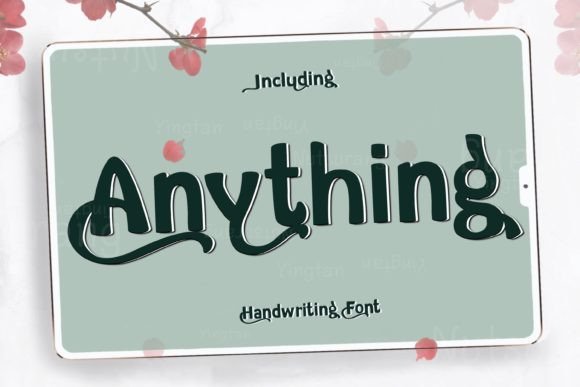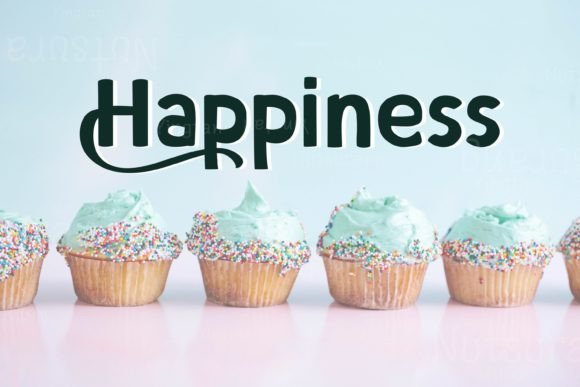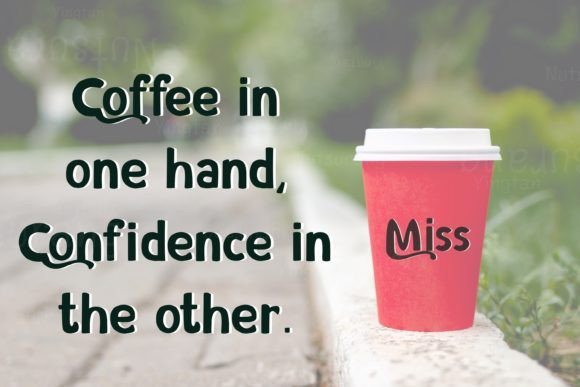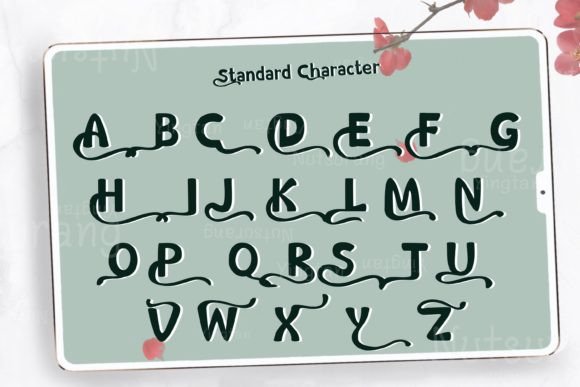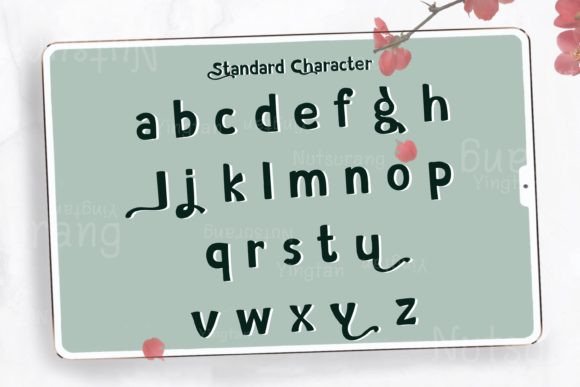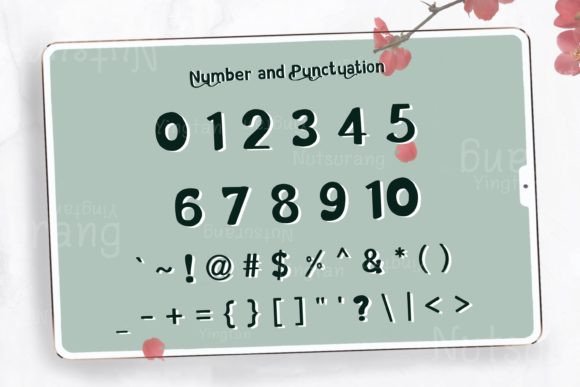
Anything Font
About Anything Font
Anything is not just a font; it’s a burst of fun and freshness that injects a playful spirit into your designs. With its modern yet whimsical style, this handwritten font adds a touch of creativity and lightheartedness to any project, creating a vibrant and engaging visual experience. Whether you’re designing greeting cards, posters, social media graphics, or any other creative content, Anything is the perfect choice to immerse your designs into a playful world.
Imagine Anything in greeting cards. Its fun and fresh characters create an immediate sense of joy and celebration, making the cards lively and delightful. Whether it’s a birthday card, a congratulatory message, or a festive invitation, this font adds a playful touch, making the cards visually appealing and memorable. Anything’s whimsical style ensures that your greetings are filled with positivity and cheer, creating a warm and joyful connection with the recipient.
In posters, Anything adds a pop of creativity. Whether it’s for events, promotions, or artistic expressions, this font creates visually striking and dynamic compositions. Anything’s modern yet whimsical design captures attention and conveys a sense of playfulness, making the posters eye-catching and engaging. The font’s fun spirit enhances the overall visual impact, turning ordinary posters into lively and captivating artworks that resonate with viewers.
For social media graphics, Anything adds a touch of freshness. Whether it’s used in Instagram stories, Facebook posts, or Twitter updates, this font creates visually appealing and shareable content. Anything’s playful and modern style enhances the social media presence, making the content stand out in crowded feeds. The font’s fun and fresh vibe ensure that your messages are conveyed with enthusiasm, sparking the interest of your audience and encouraging interaction.
In branding and logo design, Anything creates a memorable identity. Its whimsical and contemporary characters add a unique personality to businesses and products. Whether it’s a logo for a creative agency, a children’s brand, or a playful product line, this font infuses a sense of fun and freshness, making the brand instantly recognizable and approachable. Anything’s playful charm ensures that the brand leaves a lasting impression on customers, creating a positive and memorable brand experience.
Moreover, Anything seamlessly integrates into various design applications, allowing you to experiment with colors, layouts, and creative elements. Its versatility ensures that it adapts effortlessly to your creative vision, enhancing the overall aesthetic of your projects and leaving a lasting impact on anyone who experiences them.
In summary, Anything is more than just a font; it’s a playful and fresh companion that adds a touch of joy and creativity to your designs. Its modern yet whimsical style creates a fun and engaging atmosphere, making it suitable for a wide range of applications. So, let Anything be your creative spark, bringing a playful spirit to your projects and immersing your designs into a vibrant and cheerful world that captures the hearts of everyone who encounters them.